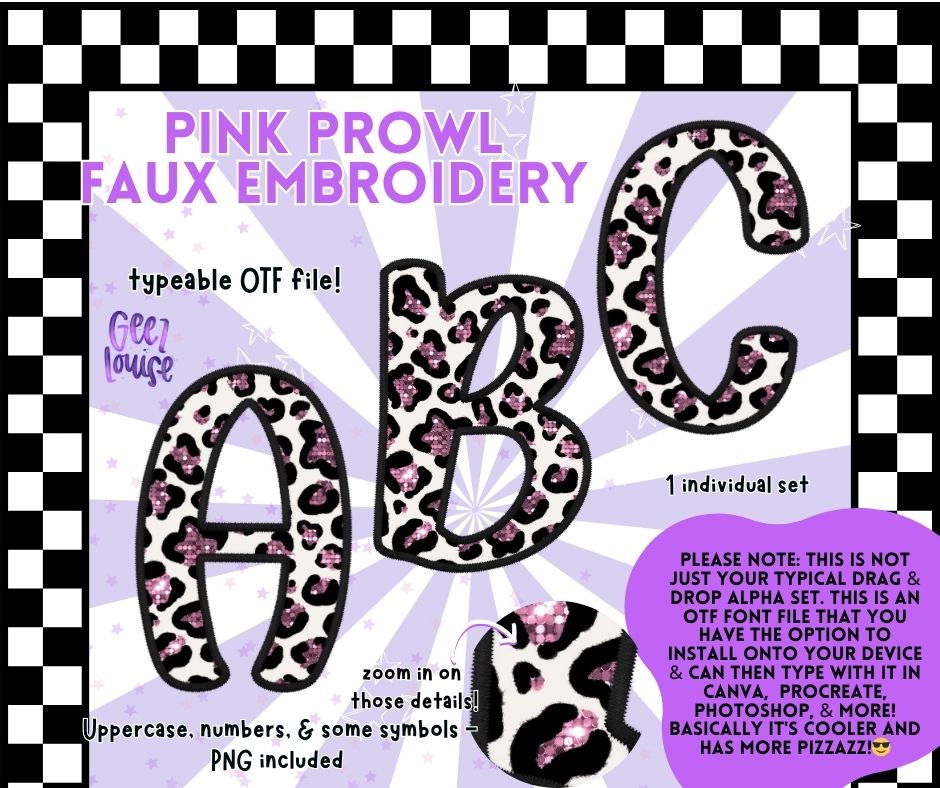
Pink Prowl Faux Embroidery Alpha – OTF Font + PNGs
Unleash your wild side with Pink Prowl – a fierce faux embroidery OTF font set featuring pink glittery leopard spots and bold black stitching. This typeable font installs like magic and works beautifully in Canva, Procreate, Photoshop, and more! Perfect for crafting, branding, or just showing off your inner diva.
✔️ Uppercase Letters